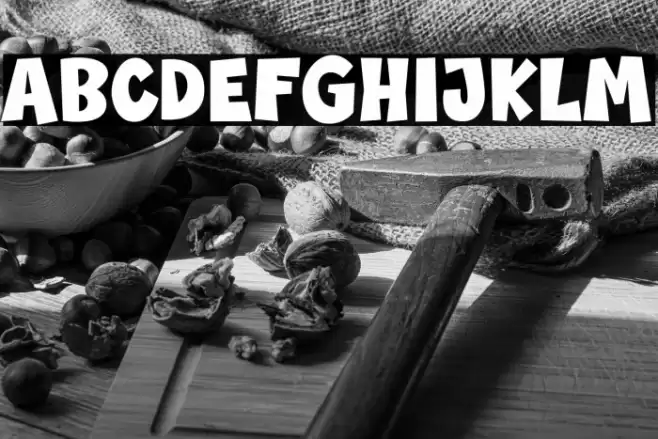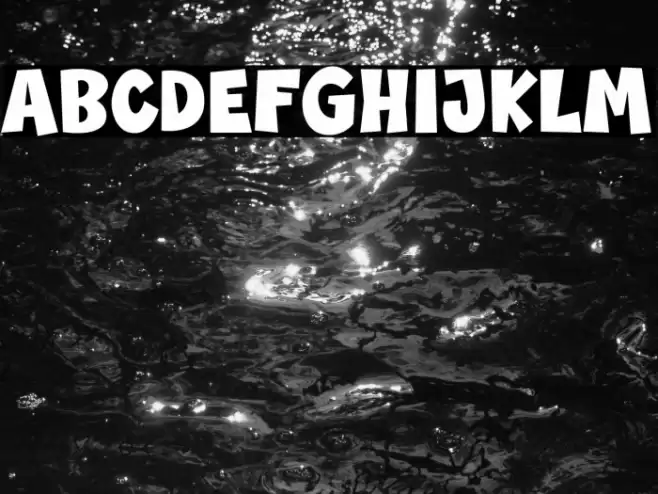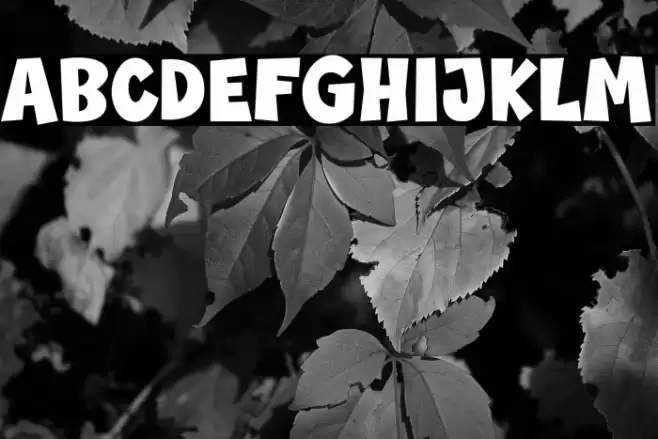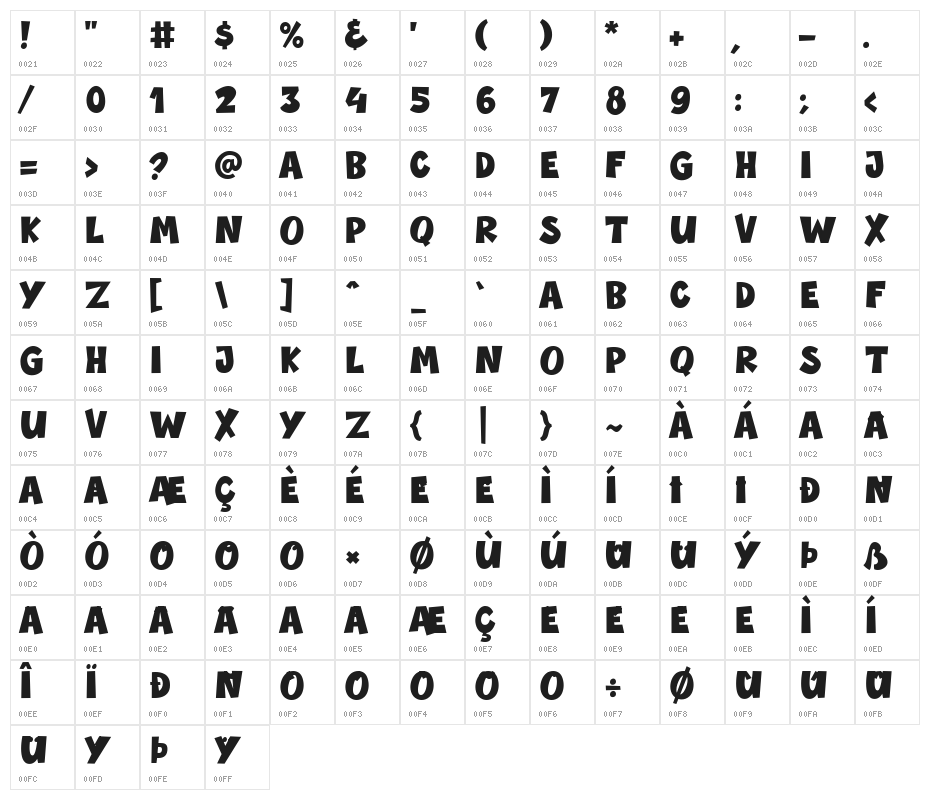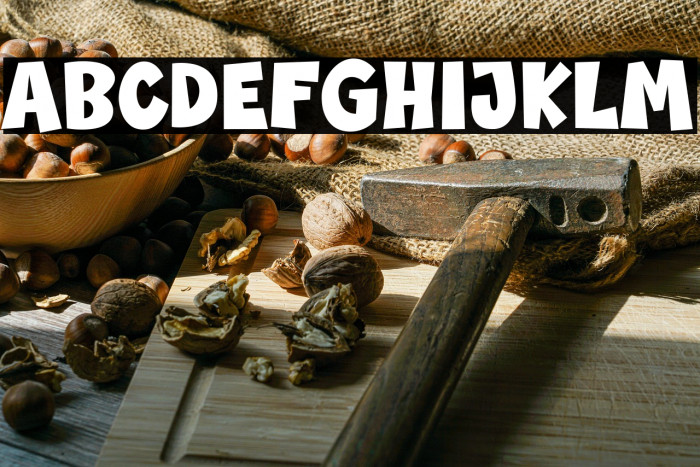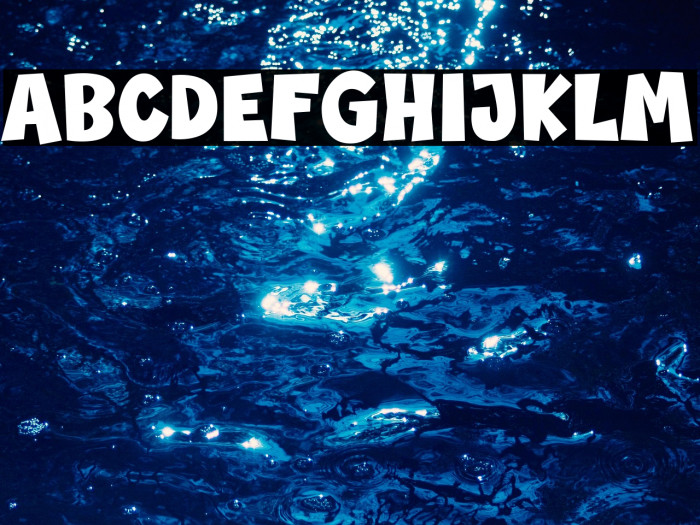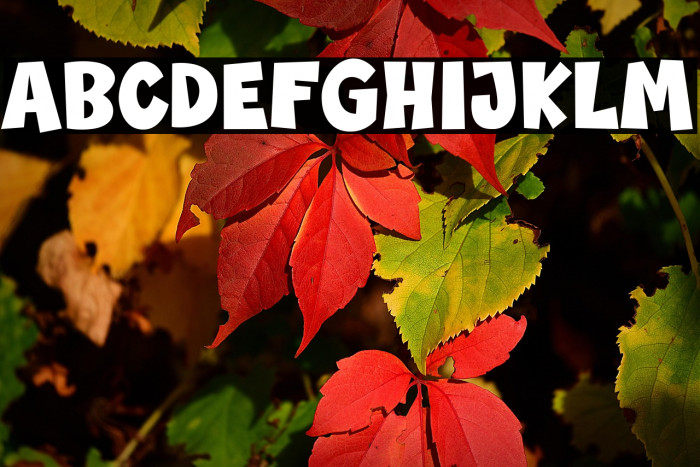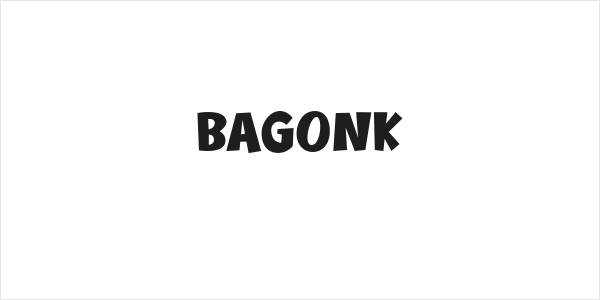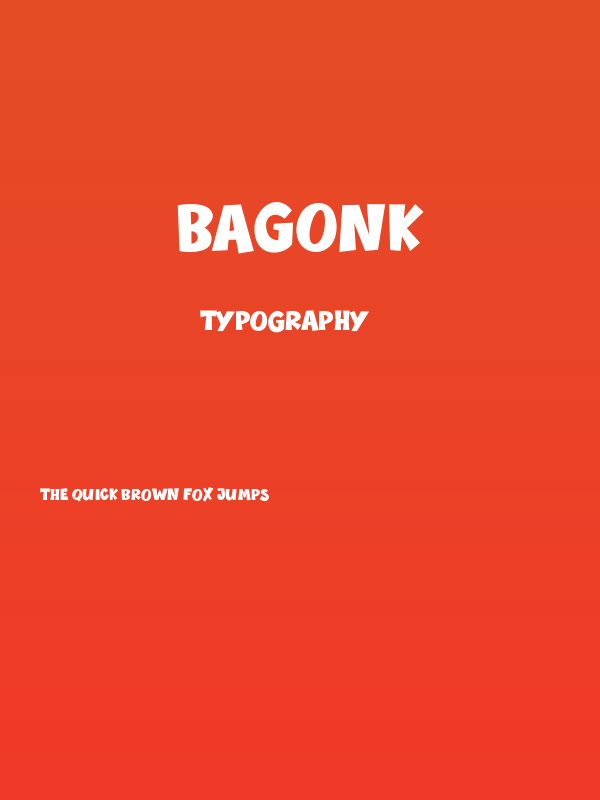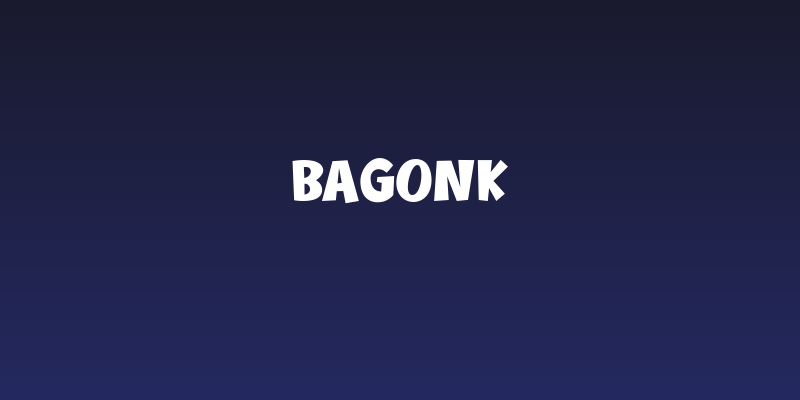
Bagonk Font
Bagonk Description
This font features a bold and playful style with exaggerated, uneven strokes that give it a lively and dynamic appearance. The characters are thick and robust, with a slightly irregular shape that adds to its whimsical charm. The uppercase and lowercase letters maintain a consistent weight, creating a cohesive look across the alphabet. The numbers and special characters follow the same design principles, ensuring uniformity throughout. Its boldness and unique character make it stand out, perfect for grabbing attention.
A bold, playful font with exaggerated, uneven strokes and a lively appearance from Uncategorized fonts.
- Font: Bagonk
- Proposed Projects: Ideal for children's books, comic strips, playful branding, and eye-catching posters.
- Overall Style: Playful, Whimsical
- Use Case: Headlines, Posters, Branding